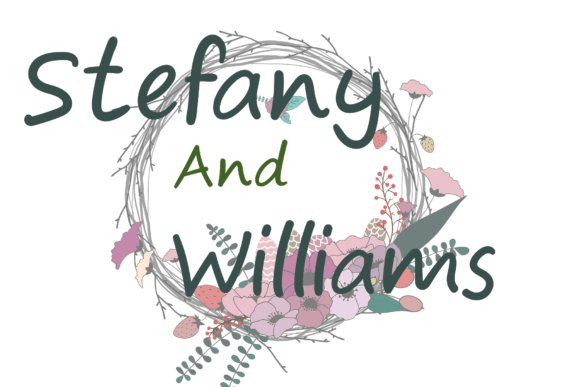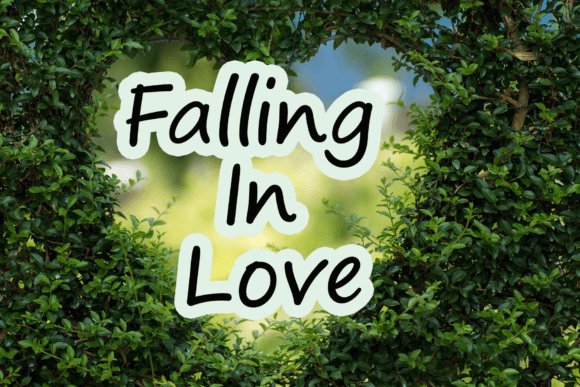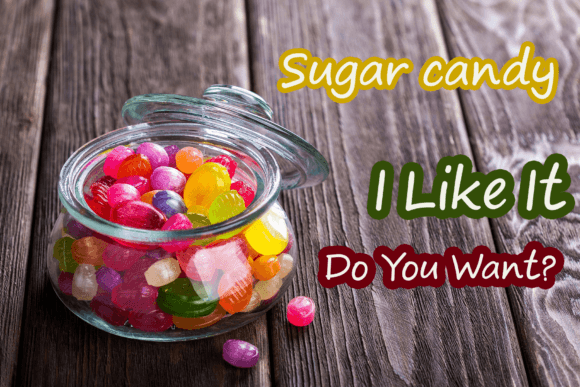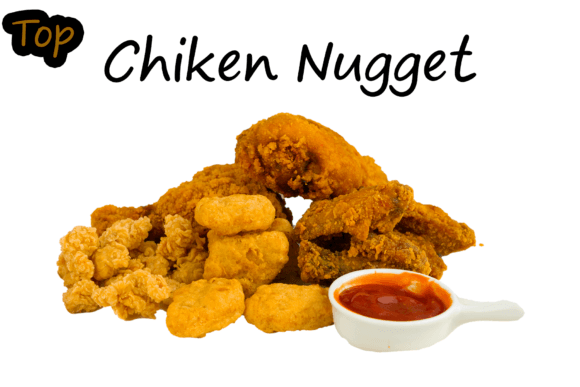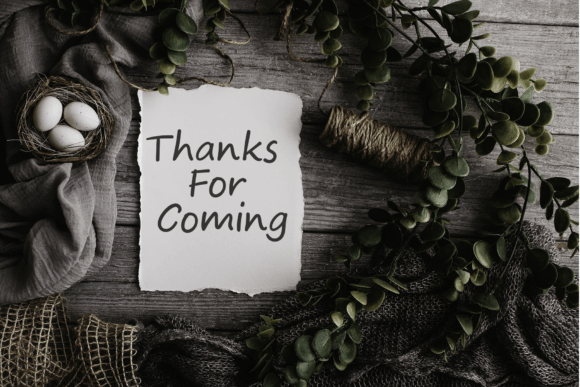
Introducing Farmhouse Font: Elevate Your Designs with Elegance
Are you on the hunt for a font that exudes elegance, sophistication, and a touch of rustic charm? Look no further than the Farmhouse Font, a stunning handwritten display font that is sure to capture your heart. With its incredibly distinct and timeless style, this beautiful font is perfect for designers, crafters, and anyone looking to add a personal touch to their projects.
The Charm of Farmhouse Font
Farmhouse Font is a neat and beautiful handwritten display font that boasts an elegant touch, making it ideal for a wide range of applications. From branding and advertising to crafting and DIY projects, this versatile font is sure to impress. Its unique blend of rustic charm and sophisticated style makes it perfect for creating spectacular designs that stand out from the crowd.
- Elegant and Refined: Farmhouse Font features a beautiful, handwritten style that exudes elegance and sophistication.
- Timeless Style: With its classic design, this font is sure to remain timeless, making it a great investment for designers and crafters.
- Incredibly Distinct: The Farmhouse Font has a unique and distinctive style that sets it apart from other fonts.
- Perfect for Display: This font is designed specifically for display purposes, making it ideal for headlines, titles, and other prominent text elements.
- Easy to Read: Despite its elegant style, Farmhouse Font is easy to read, making it perfect for use in a variety of applications.
Uses for Farmhouse Font
Farmhouse Font is an incredibly versatile font that can be used in a wide range of applications, including:
- Branding and Advertising: Use Farmhouse Font to create eye-catching logos, advertisements, and marketing materials that stand out from the crowd.
- Crafting and DIY Projects: Add a personal touch to your crafting and DIY projects with Farmhouse Font, perfect for use on signs, labels, and other decorative items.
- Stationery and Invitations: Create beautiful stationery, invitations, and greeting cards with Farmhouse Font, adding a touch of elegance to any occasion.
- Web Design: Use Farmhouse Font to create stunning website headers, titles, and other text elements that showcase your brand’s personality.
- Use it Sparingly: Farmhouse Font is a display font, so use it sparingly to create emphasis and add visual interest to your designs.
- Pair it with Other Fonts: Experiment with pairing Farmhouse Font with other fonts to create a unique and visually appealing combination.
- Adjust the Size and Color: Play around with different sizes and colors to find the perfect combination for your design.
Farmhouse Font is a beautiful and elegant handwritten display font that is sure to capture your heart. With its incredibly distinct and timeless style, this font is perfect for designers, crafters, and anyone looking to add a personal touch to their projects. Whether you’re looking to create stunning branding and advertising materials, beautiful stationery and invitations, or eye-catching web design elements, Farmhouse Font is the perfect choice. So why wait? Fall in love with Farmhouse Font today and start creating spectacular designs that showcase your unique style!